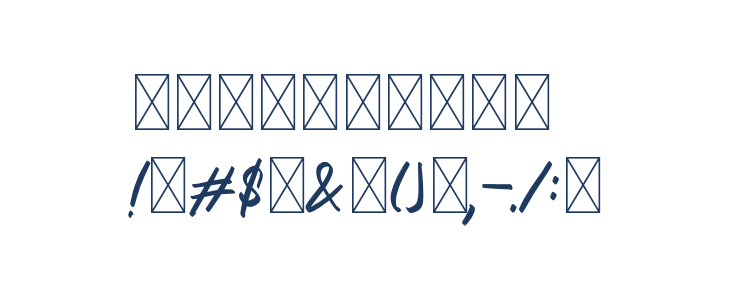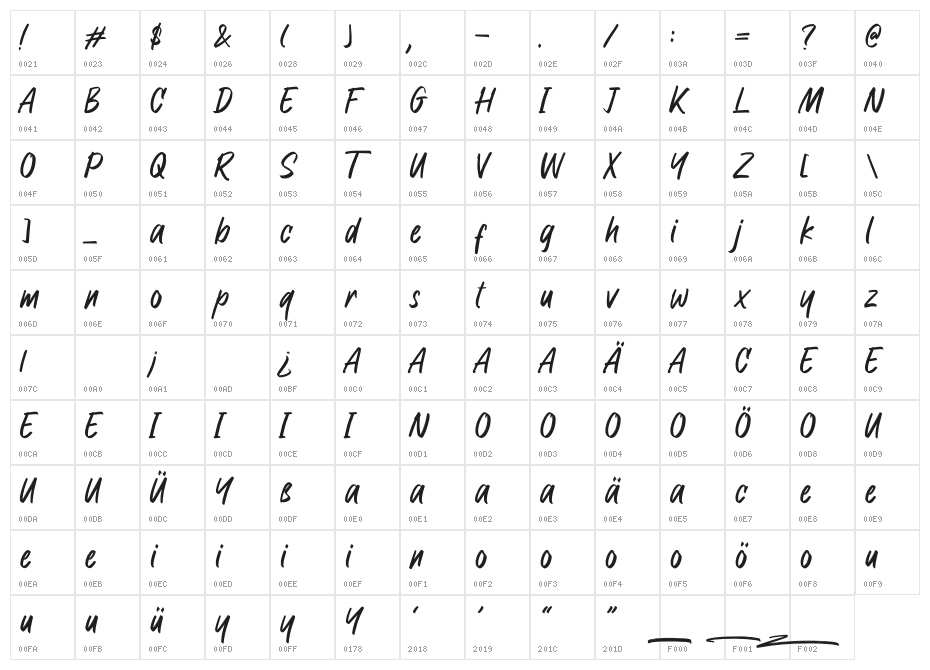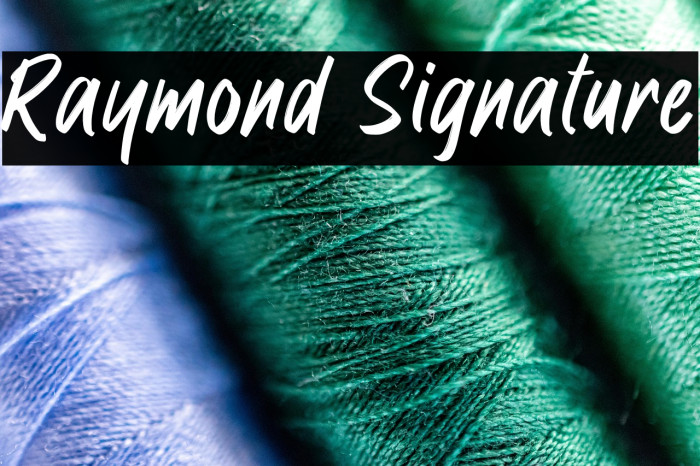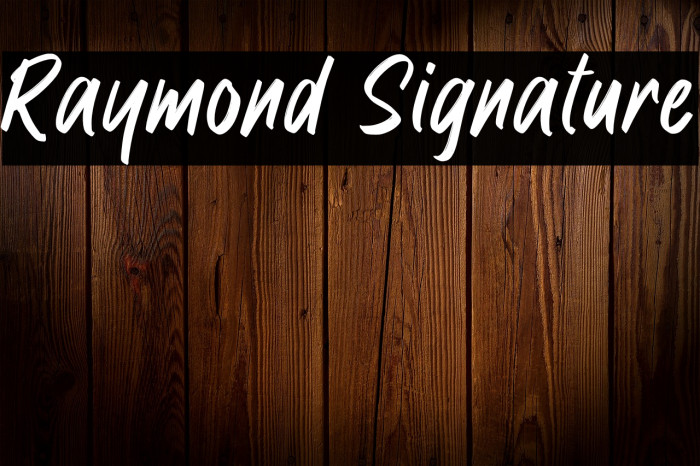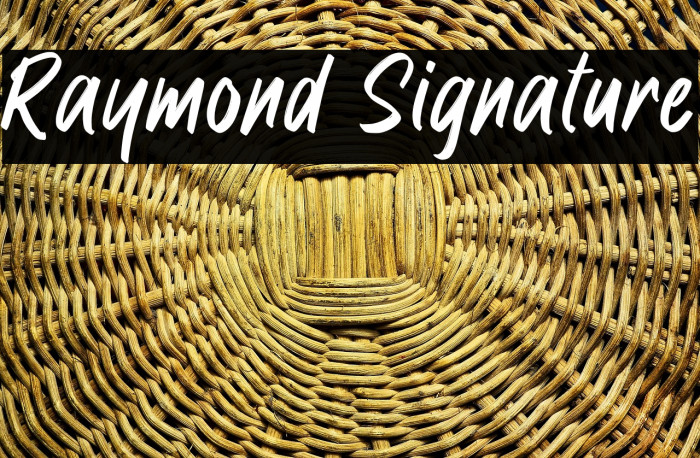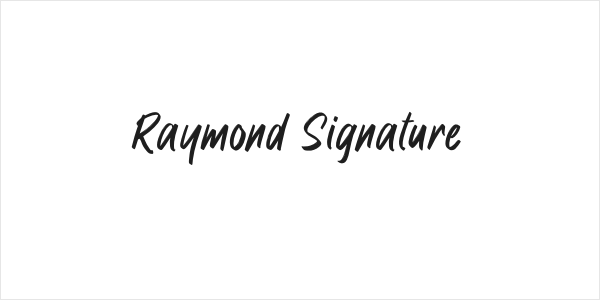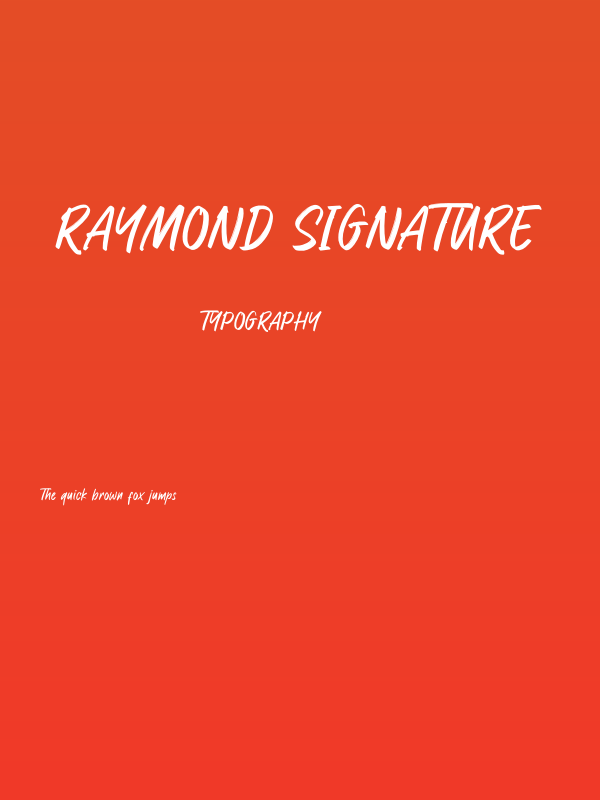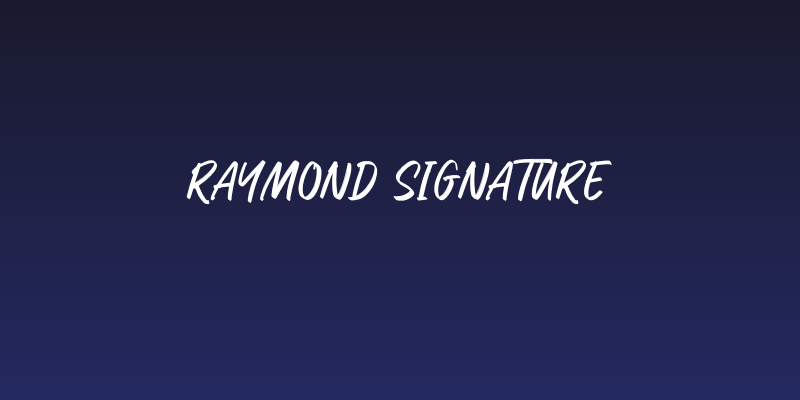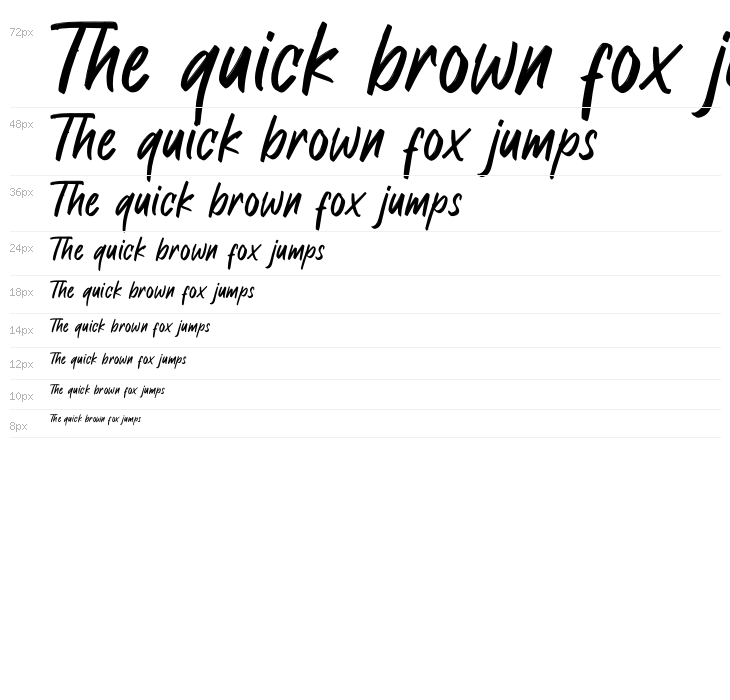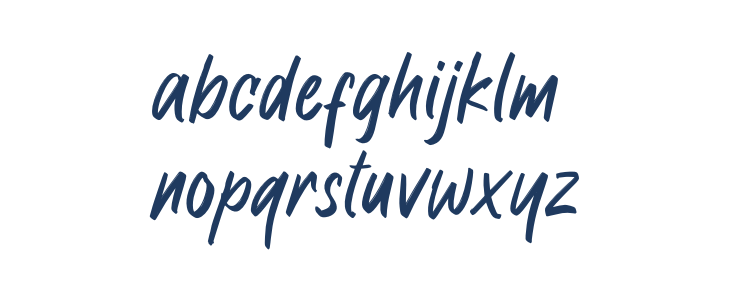
Raymond Signature Font
Raymond Signature Description
This font exudes a dynamic and energetic feel, characterized by its flowing, cursive style that mimics natural handwriting. The letters are slightly slanted, adding to the casual and personal touch. The strokes are smooth and connected, with a moderate thickness that ensures readability while maintaining an elegant appearance. The uppercase letters are bold and prominent, while the lowercase letters offer a softer, more fluid look. This font is ideal for projects that require a personal, handwritten touch, such as invitations, greeting cards, or branding materials.
| Use Case | Logos, Headlines, Personal projects |
| Proposed Projects | Ideal for invitations, greeting cards, branding, and personal projects requiring a handwritten touch. |